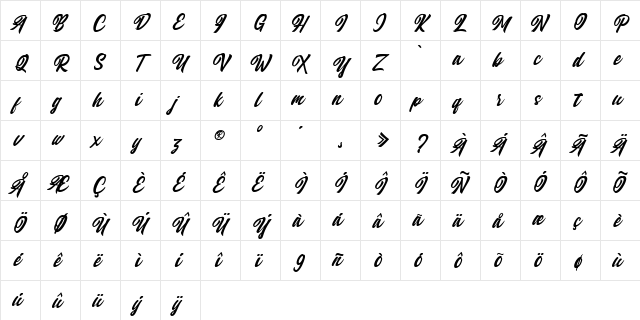
Qintan Script Free Regular
| Foundry | Rits Boys Studio |
| Designer | Haris Purnama Putra |
Design Context for Qintan Script Free Typeface
Qintan Script Free brings a calligraphic fluidity to the page — its connecting strokes and expressive curves give it an unmistakably human quality.